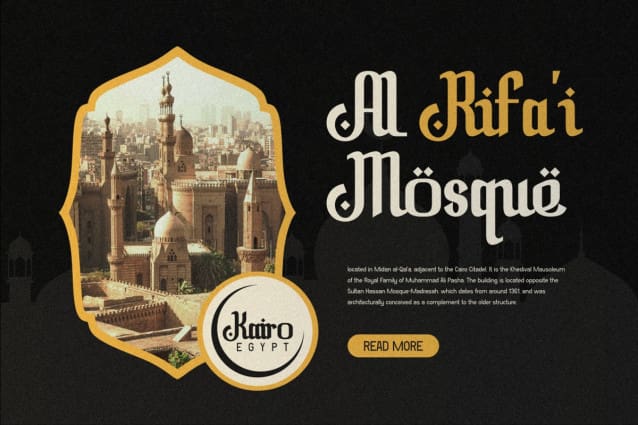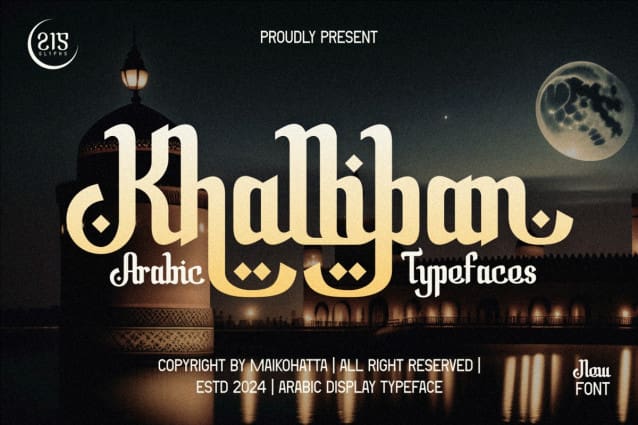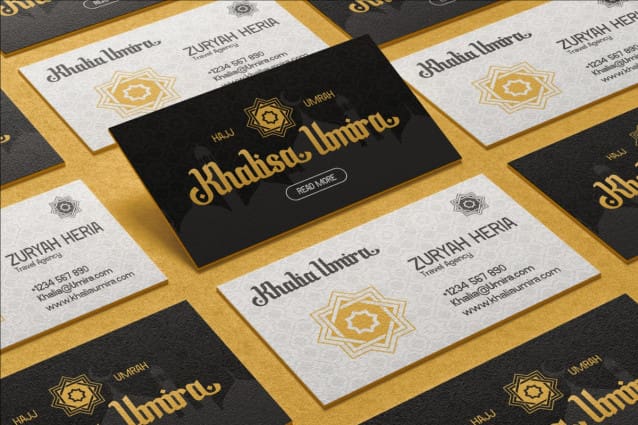
Khalliban Arabic Font
Khalliban Arabic Font is a bold and authentic display font. The font is suitable for any branding project like logo, Template Design, esport, and many more. outstanding in a wide range of contexts.